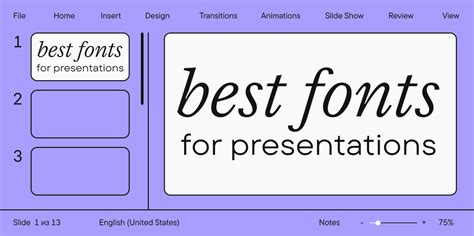
Font For Powerpoint Presentation. Futura is one of the popular sans. Web aug 28, 2023 • 17 min read english presentations templates microsoft powerpoint if you're giving a powerpoint presentation, you've got many design decisions to make.
Web aug 28, 2023 • 17 min read english presentations templates microsoft powerpoint if you're giving a powerpoint presentation, you've got many design decisions to make. Web best fonts for presentations and powerpoint 1. Originally created in 1957, helvetica comes. Web best fonts to use for powerpoint 1. Helvetica is a basic sans serif font with a loyal user base. Web keep this from happening by embedding your font in powerpoint using these easy steps: Futura is one of the popular sans.
Web keep this from happening by embedding your font in powerpoint using these easy steps: Web aug 28, 2023 • 17 min read english presentations templates microsoft powerpoint if you're giving a powerpoint presentation, you've got many design decisions to make. Web best fonts for presentations and powerpoint 1. Originally created in 1957, helvetica comes. Web best fonts to use for powerpoint 1. Web keep this from happening by embedding your font in powerpoint using these easy steps: Futura is one of the popular sans. Helvetica is a basic sans serif font with a loyal user base.